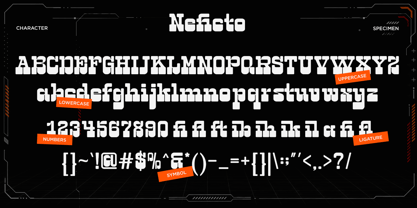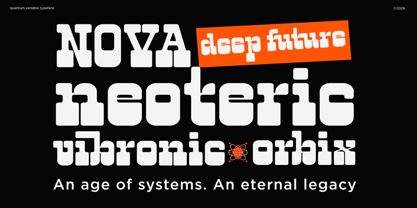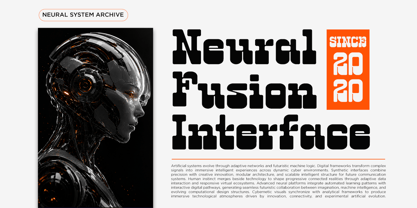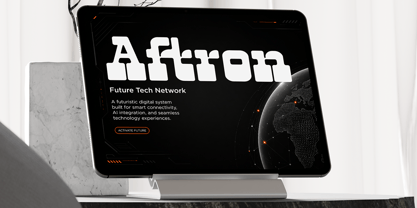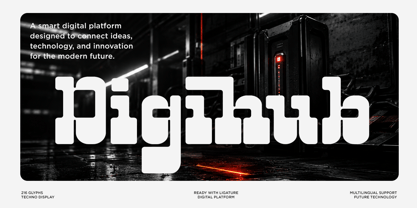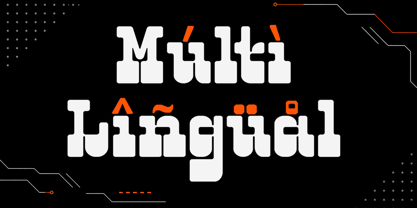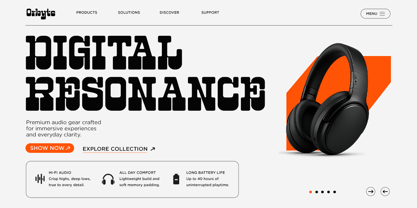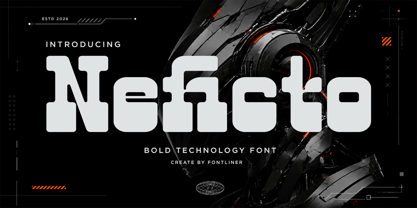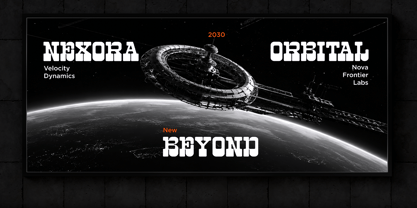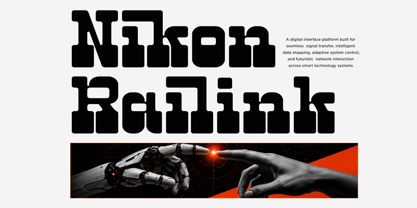
Neficto
Die Schriftfamilie Neficto wurde von Ghina Luthfiarieska entworfen und von Font Liner veröffentlicht. Neficto enthält 2 Stile und Familienpaketoptionen. Mehr über diese Familie
Step into the future with Neficto, a bold futuristic display font crafted for high-impact visual projects. With its powerful geometric structure, modern tech-inspired curves, and cyberpunk aesthetics, Neficto delivers a strong visual identity perfect for brands that want to look innovative, advanced, and unforgettable.
Designed for creators working in technology, gaming, automotive, esports, sci-fi, and digital branding, Neficto excels in headlines, logos, posters, UI concepts, packaging, and futuristic product campaigns. Its bold construction ensures excellent readability while maintaining a unique experimental personality that stands out in competitive marketplaces.
Whether you're building a cutting-edge startup identity, designing gaming merchandise, creating YouTube thumbnails, or producing futuristic promotional materials, Neficto gives your work a sleek, high-tech edge that feels both modern and premium.
Regular & Italic Style
Stylistic Ligature
Uppercase & Lowercase
Numbers & Punctuation
Multilingual Support